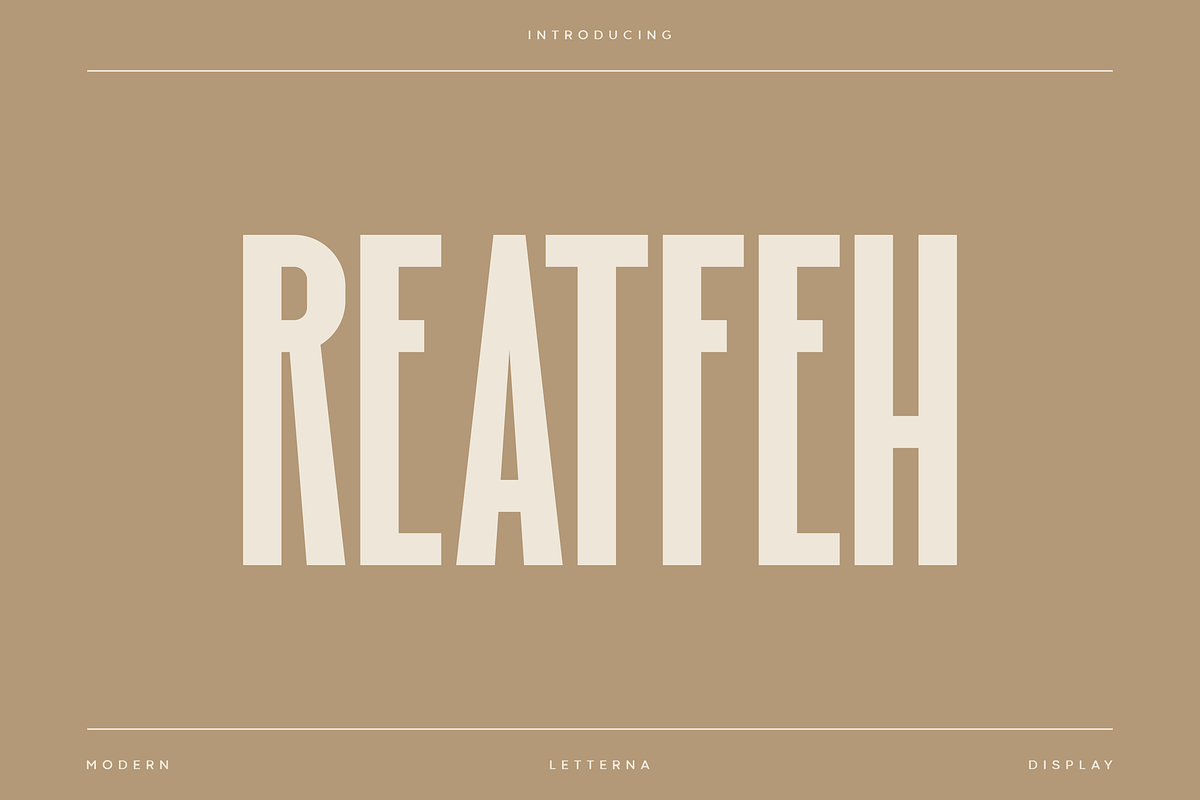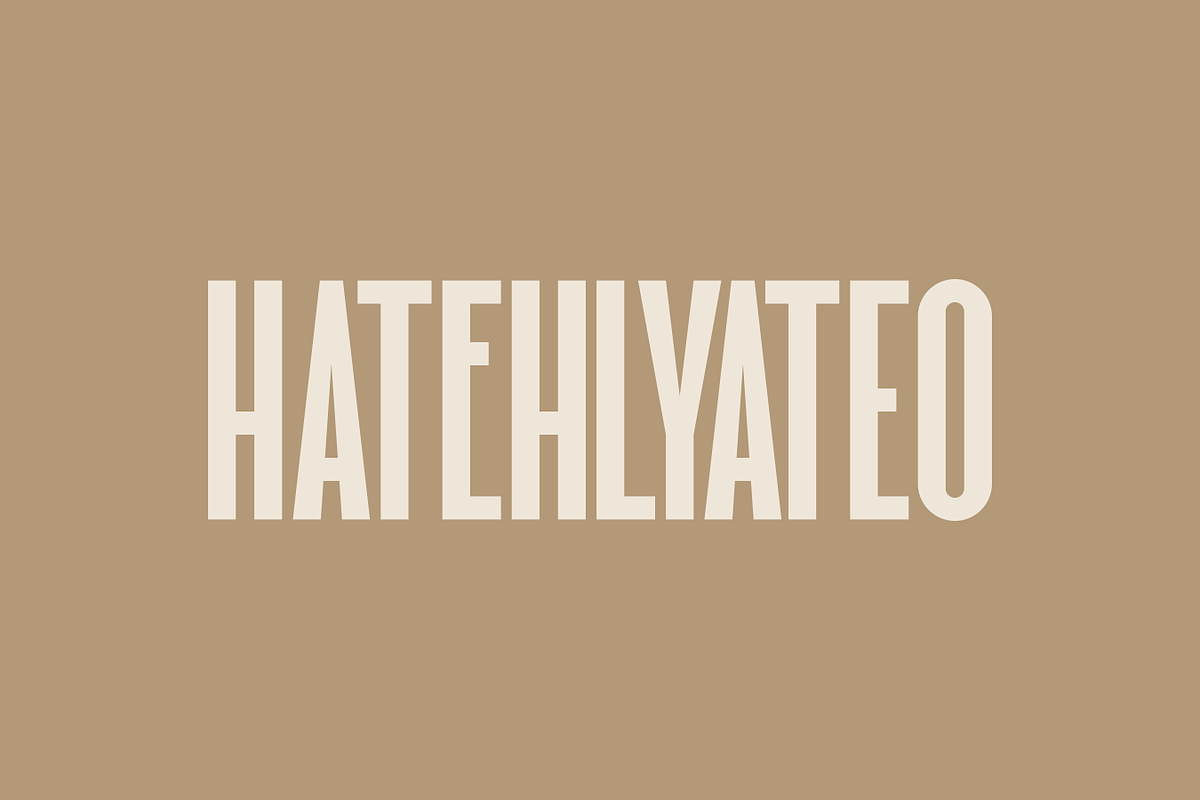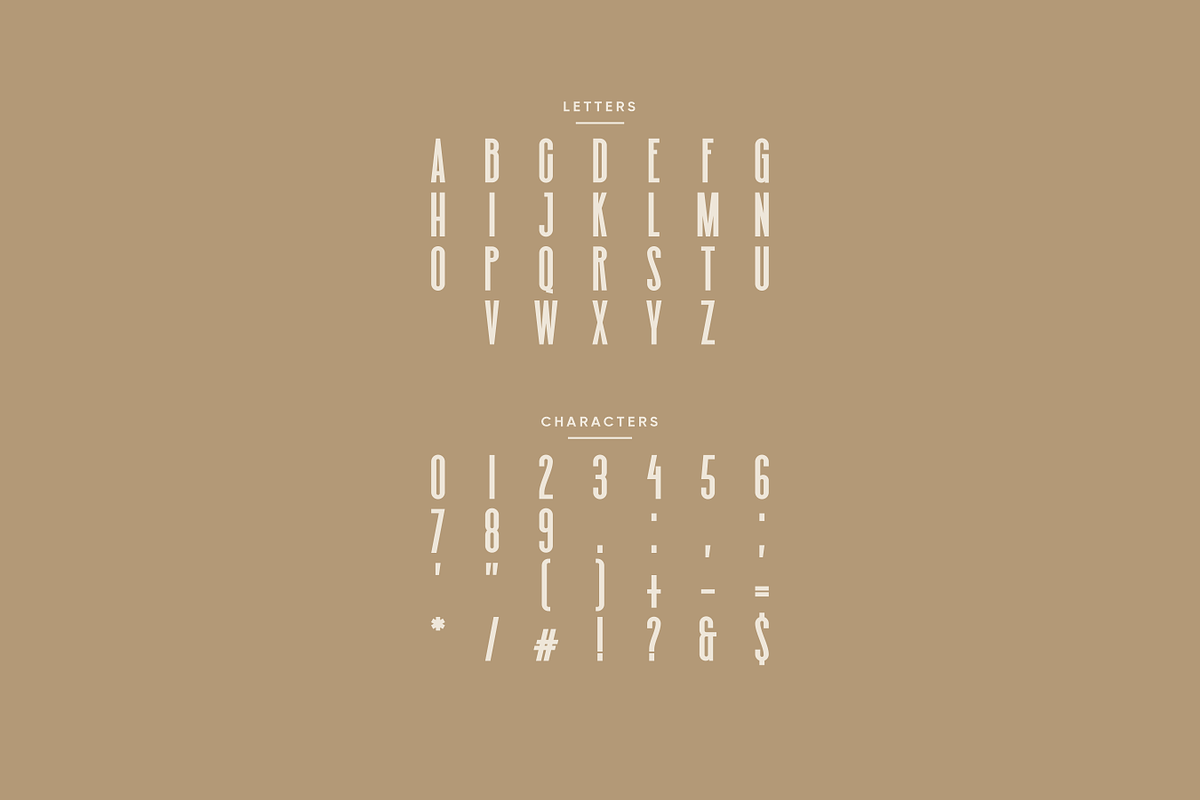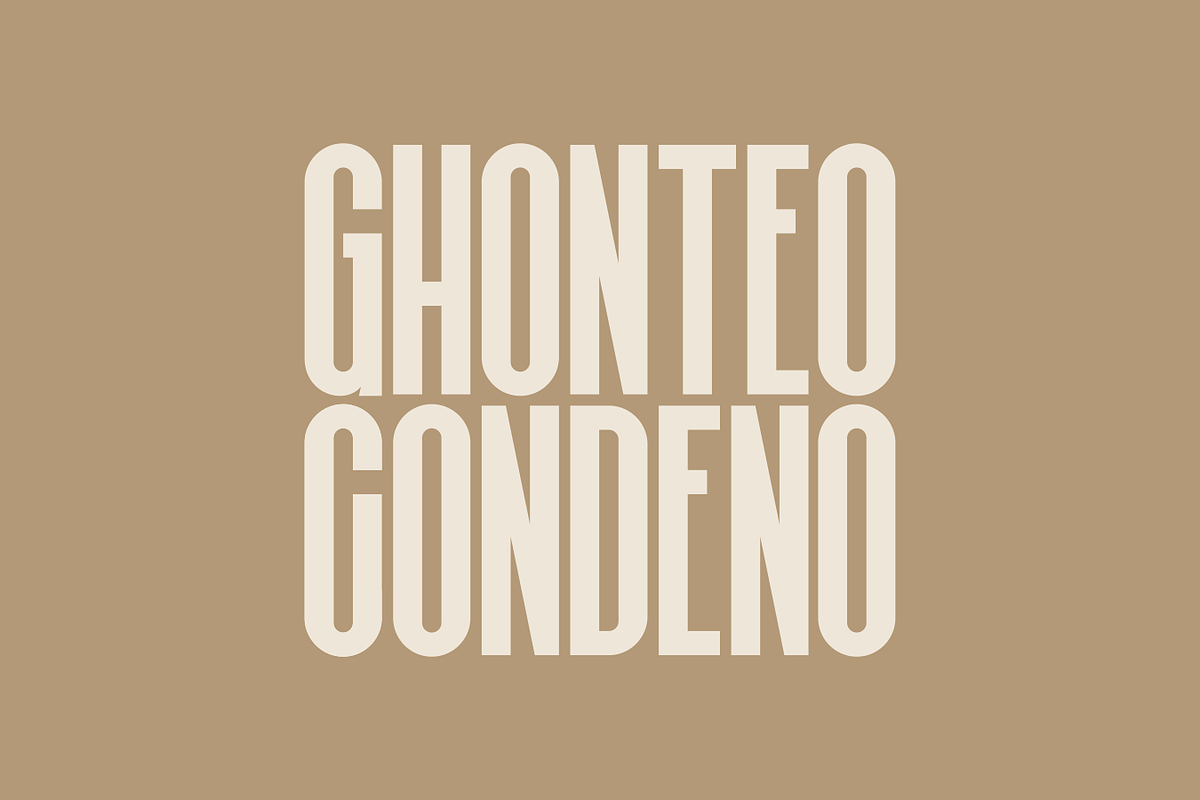
Reatfeh - Modern Condensed Typeface
Reatfeh condensed and minimalist character! This sleek, condensed sans-serif font is crafted to make an impact, fitting more into less without losing clarity or style. Its narrow letter forms are perfect for logos, branding, magazine, posters, invitations, headers, or even large-scale artwork.